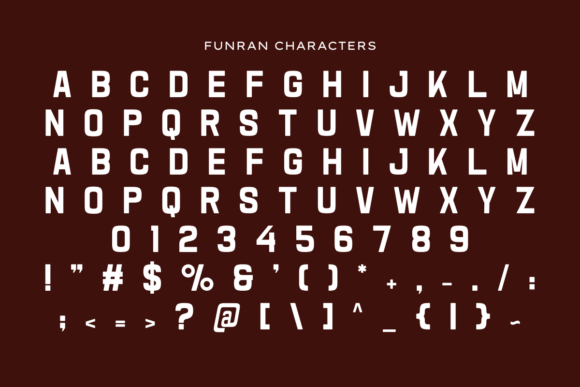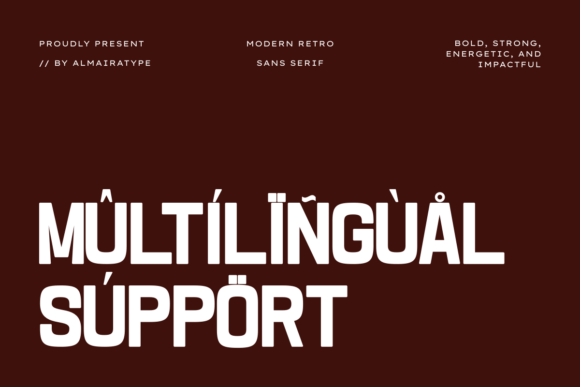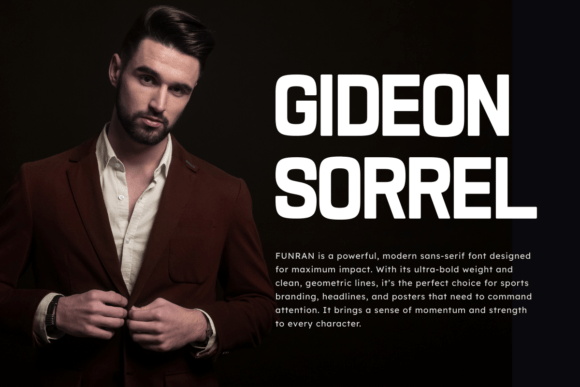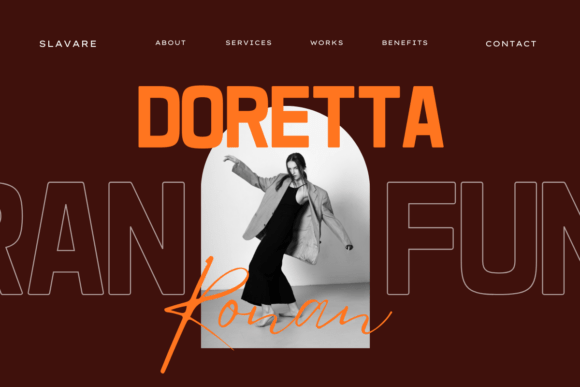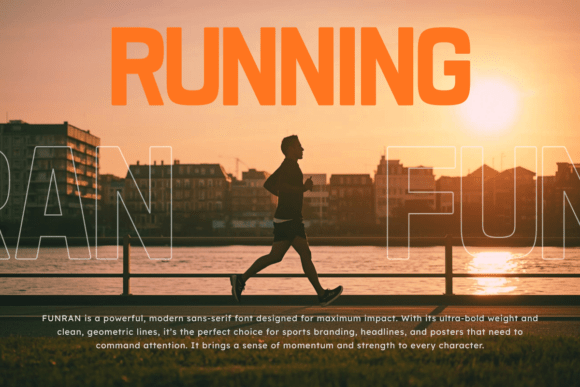
Unleash the Power of Funran Font: Elevate Your Designs with Unstoppable Energy
Are you tired of using the same old fonts that fail to make an impact? Look no further than Funran Font, a powerful, modern retro sans serif font designed to take your visual storytelling to the next level. With its ultra-bold weight and clean, geometric lines, Funran is the perfect choice for sports branding, competitive racing graphics, and bold event posters that need to command attention.
A Unique Blend of Classic and Contemporary Style
Funran Font brings a unique sense of momentum and strength to every character, blending classic athletic aesthetics with a contemporary, sleek finish. This font is not just a typographic choice; it’s a statement piece that can elevate your design projects and make them stand out from the crowd. Whether you are creating dynamic social media content, professional team logos, or standout apparel designs, Funran provides a solid and reliable typographic foundation.
One of the key benefits of Funran Font is its versatility. It’s equally suitable for cinematic titles, fitness motivation quotes, and innovative packaging projects. The balanced proportions of the font ensure excellent legibility across both digital and print platforms, allowing your creative vision to shine with professional clarity. This means you can use Funran Font across a wide range of applications, from digital media to print materials, without worrying about how it will look.
Funran Font is a game-changer for designers and crafters who want to create bold, eye-catching designs that command attention. With its ultra-bold weight and clean lines, this font is perfect for creating dynamic social media content, professional team logos, and standout apparel designs. Whether you’re working on a sports branding project, a competitive racing graphic, or a bold event poster, Funran Font is the perfect choice.
Key Features of Funran Font
- Ultra-bold weight: Funran Font has an ultra-bold weight that makes it perfect for creating bold, eye-catching designs.
- Clean, geometric lines: The font features clean, geometric lines that give it a modern, sleek look.
- Classic athletic aesthetics: Funran Font blends classic athletic aesthetics with a contemporary, sleek finish.
- Versatile: The font is versatile and can be used across a wide range of applications, from digital media to print materials.
- Excellent legibility: The balanced proportions of the font ensure excellent legibility across both digital and print platforms.
- Use it for headlines: Funran Font is perfect for creating bold, eye-catching headlines that command attention.
- Pair it with other fonts: You can pair Funran Font with other fonts to create a unique and visually appealing design.
- Experiment with different colors: Funran Font looks great in a variety of colors, so don’t be afraid to experiment and find the perfect color for your design.
| Author | Almairatype Studio |